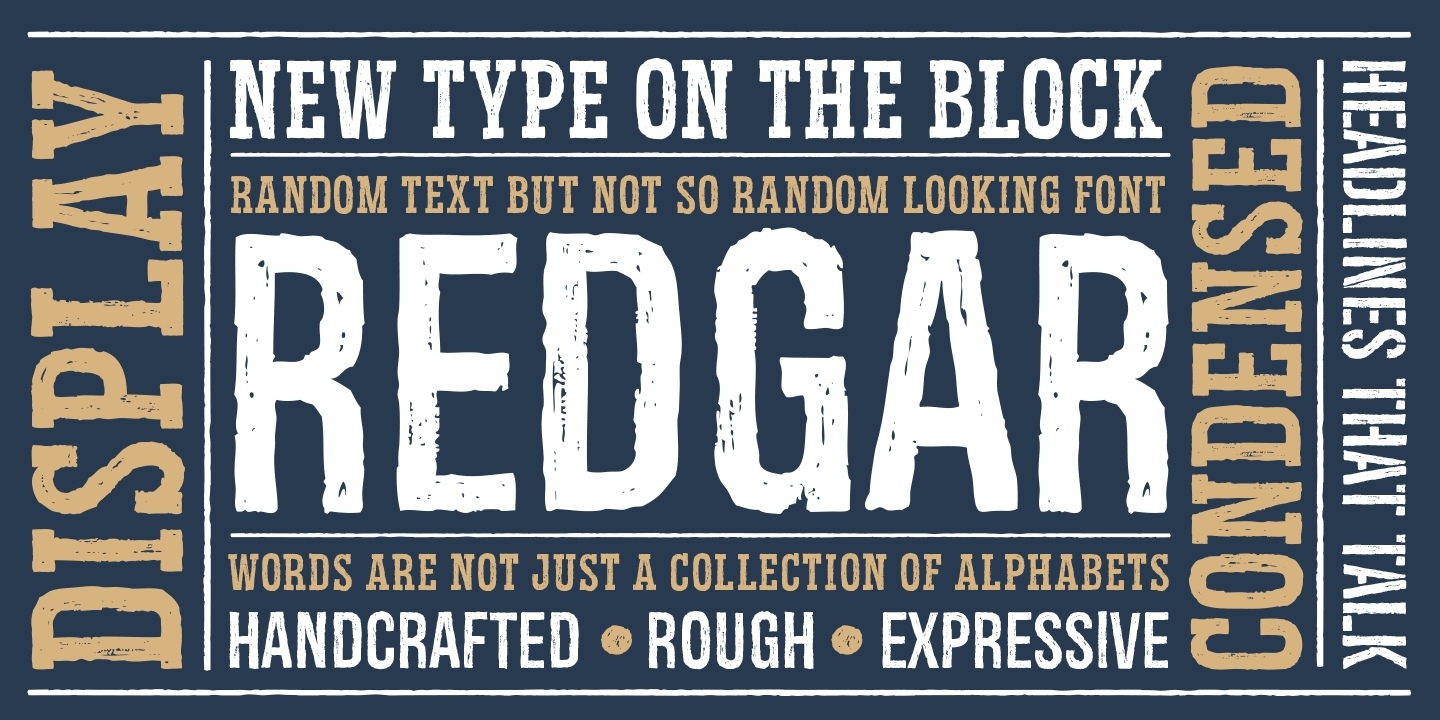
Redgar Font
Redgar Font is perfect for bold brand identities, powerful corporate presentations, strong industrial marketing, commanding advertising campaigns, robust construction company materials, authoritative business communications, dynamic sports branding, and impactful professional designs.
What makes Redgar Font exciting is its commanding presence that embodies strength and unwavering determination through bold, assertive letterforms that seem to stand firm against any challenge. The font features robust geometric structures with confident angles that convey reliability, power, and the kind of steadfast character that inspires trust and respect. Its authoritative design philosophy and strong visual impact make it perfect for organizations that need to communicate leadership, dependability, and the unshakeable strength that clients and customers can rely on when they need solutions that deliver results without compromise.
Redgar Font family includes various powerful weights such as Regular, Medium, Bold, and Heavy variations, often featuring strong stylistic alternates and authoritative decorative elements. The family may include commanding symbols, robust ornaments, and powerful ligatures that enhance the font's strong aesthetic, providing designers with comprehensive options for creating impactful typographic compositions that establish authority and communicate unwavering strength.
This commandingly strong typeface has gained recognition among leadership-focused brands and authority-driven organizations seeking authentic power typography solutions that reflect strength values and commanding presence. Redgar Font Free Download provides an excellent opportunity to command attention with this powerful font before investment. The font's character set includes authoritative symbols and strength-inspired glyphs that work perfectly for leadership and professional service industry applications. Whether you're designing for executive consulting firms, industrial companies, or commanding lifestyle brands, Redgar Font delivers the authoritative strength your project requires. Its versatile nature makes it suitable for various powerful applications including leadership development companies, industrial equipment manufacturers, executive coaching services, and strength-focused business brands, ensuring your typography choices communicate unwavering authority and professional strength while creating memorable brand experiences that inspire confidence in your ability to deliver powerful results through its distinctively commanding and authentically strong visual character.